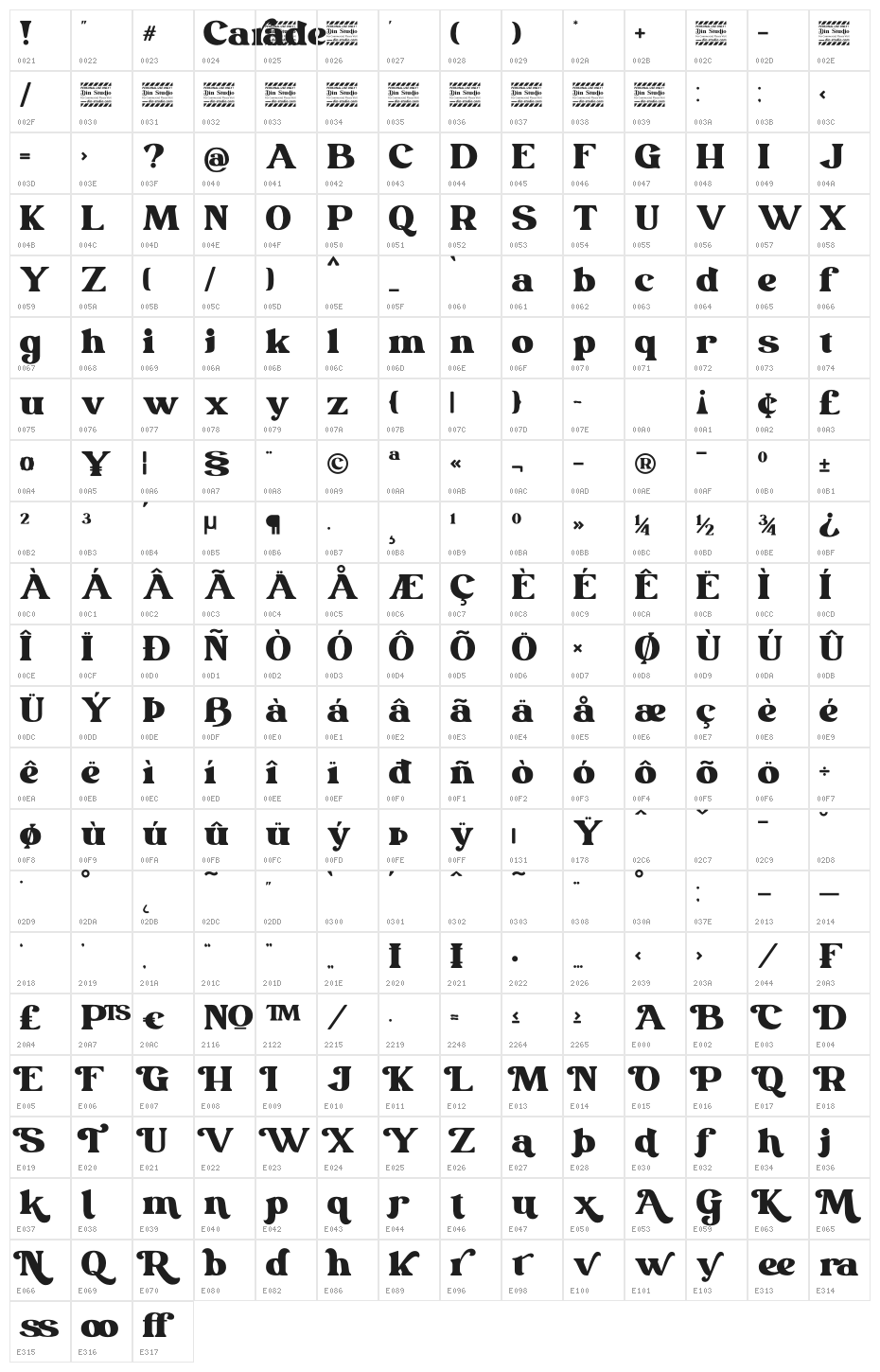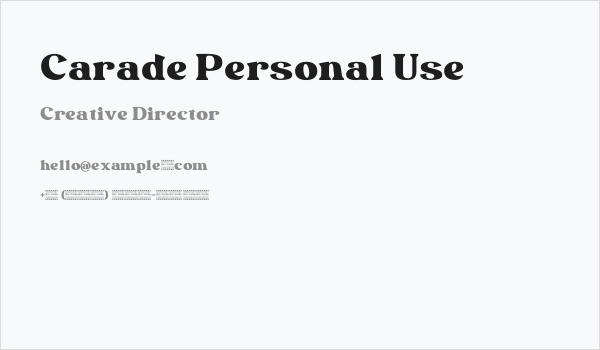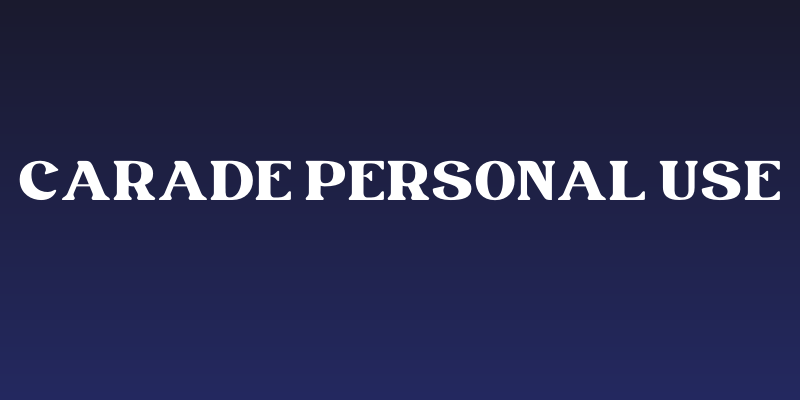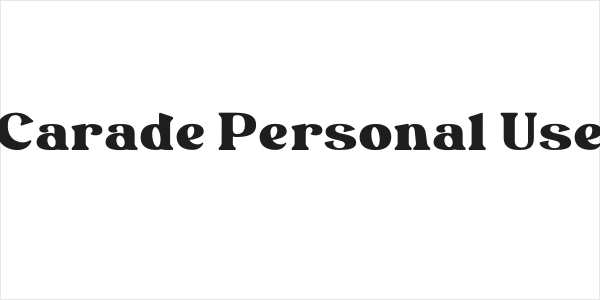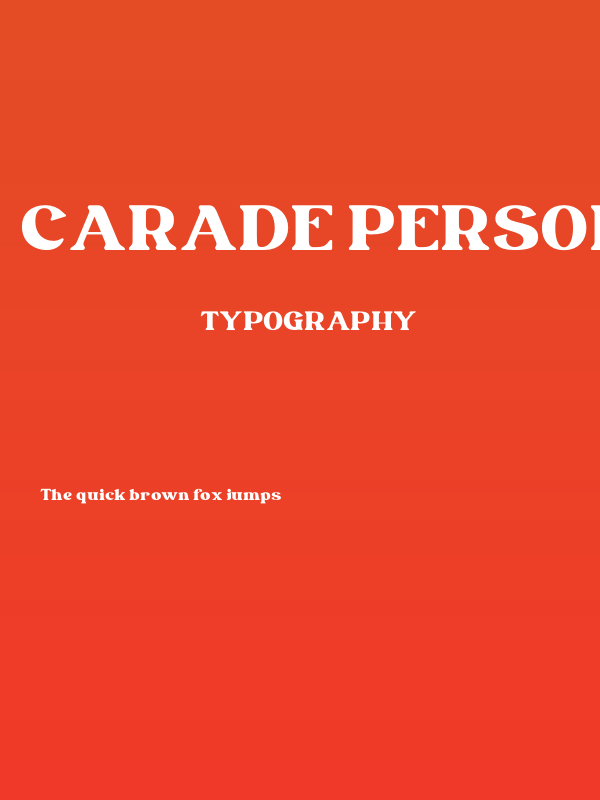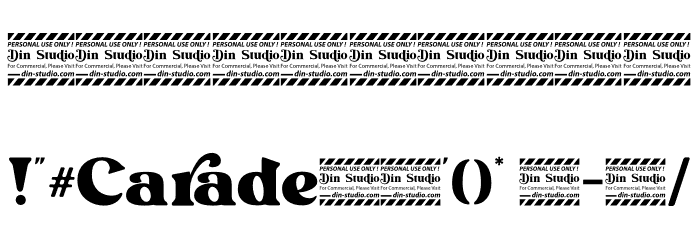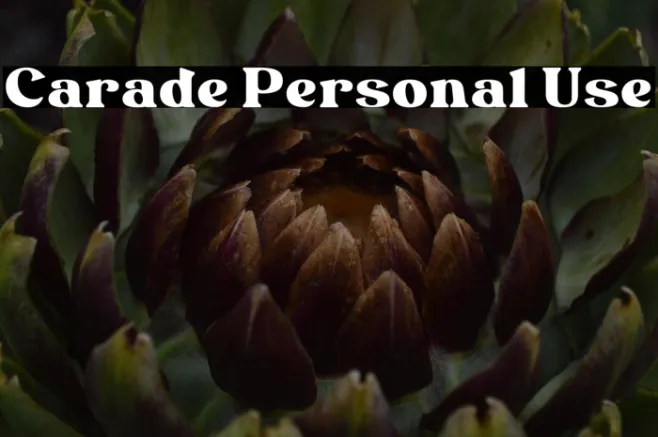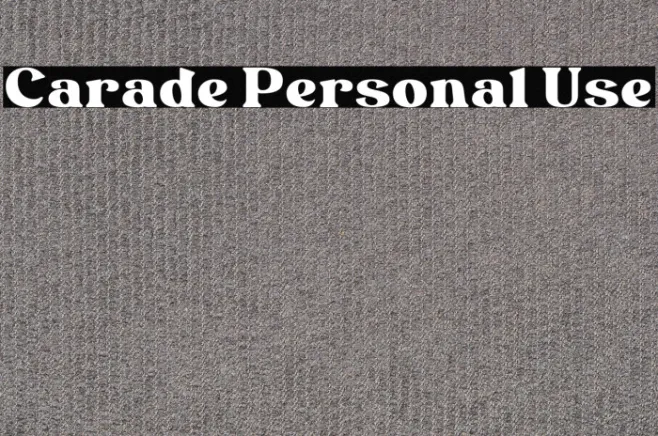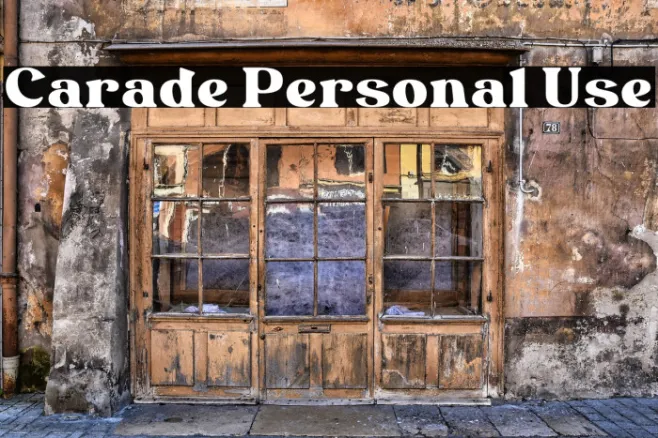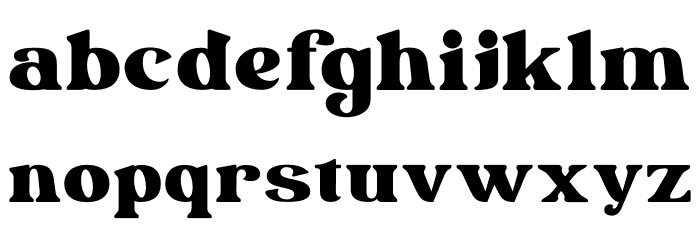
Carade Personal Use Font
Carade Personal Use Description
This font features a bold and dynamic style with thick, prominent strokes that give it a strong presence. The uppercase letters are robust and slightly condensed, while the lowercase letters maintain a consistent weight, offering a harmonious balance. The serifs are pronounced, adding a touch of elegance and traditional appeal. The font's overall appearance is both classic and modern, making it versatile for various design applications. The numerals are equally bold, ensuring readability and impact. Special characters are designed with the same attention to detail, maintaining the font's cohesive look.
| Proposed Projects | Ideal for branding, headlines, posters, and editorial design where a strong, impactful typeface is needed. |